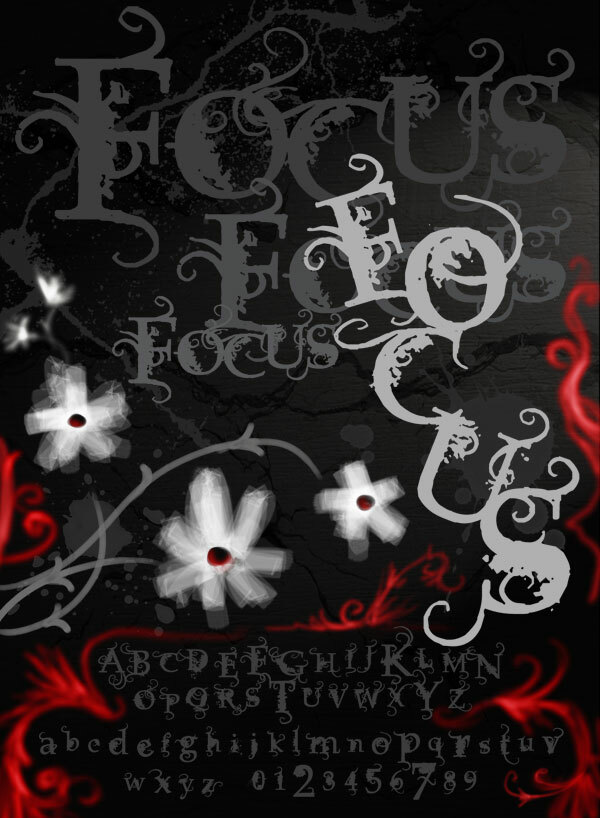
Vtks Focus by Douglas Vitkauskas is a free Victorian-inspired display font built from dramatic, heavily ornamented letterforms. Strong thick-and-thin strokes give the lettering a dark, theatrical silhouette that feels both antique and unruly. Curled extensions, uneven contours, and repeated thorny flourishes make the forms resemble hand-cut initials from an eccentric old storybook.
Posters provide an especially fitting setting for its decorative scale and sharp silhouette, with fantasy packaging, event invitations, and album covers also benefiting from its strange period character. Its curling letters can intertwine with dark, detailed gothic illustration.